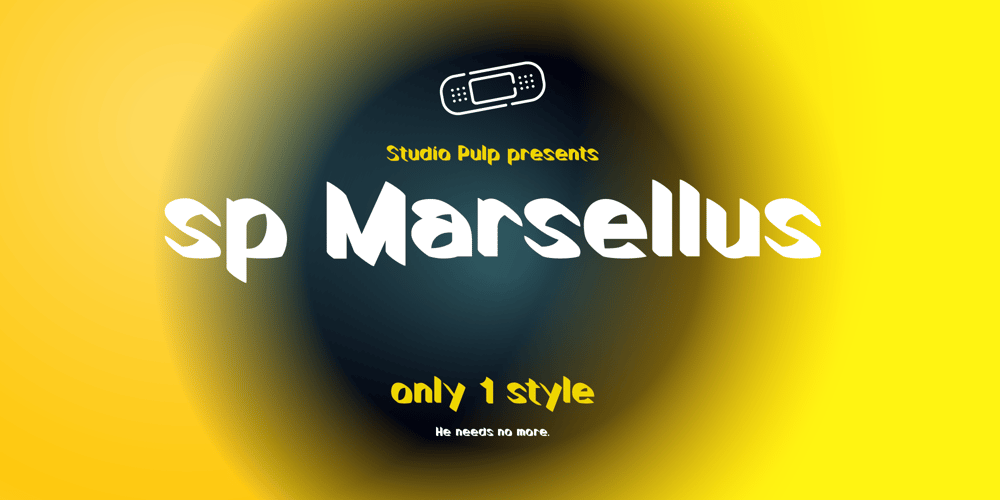
SP Marsellus Font Family was designed by Roel Dierckens and published by Studio Pulp. SP Marsellus contains 1 styles and family package options. Discover the commanding allure of SP Marsellus, a bold typeface developed by Studio Pulp. Inspired by the formidable figure of Marsellus Wallace from the cult classic “Pulp Fiction” (1994), this font offers a single weight with a bold appearance, perfect for statements that demand attention.Grounded in the unforgettable persona of Marsellus Wallace, SP Marsellus exudes undeniable authority. With its bold shapes and sharp lines, this typeface dominates space and commands attention. This typographic choice embodies the essence of Marsellus’ character – powerful, fearless, and resolute.Like Marsellus Wallace himself, SP Marsellus leaves a lasting impression. It offers an unmistakable presence in every composition, with each letter telling a story of determination and dominance. Incorporate SP Marsellus into your designs and let your message resonate powerfully, just like the unforgettable moments from “Pulp Fiction.”